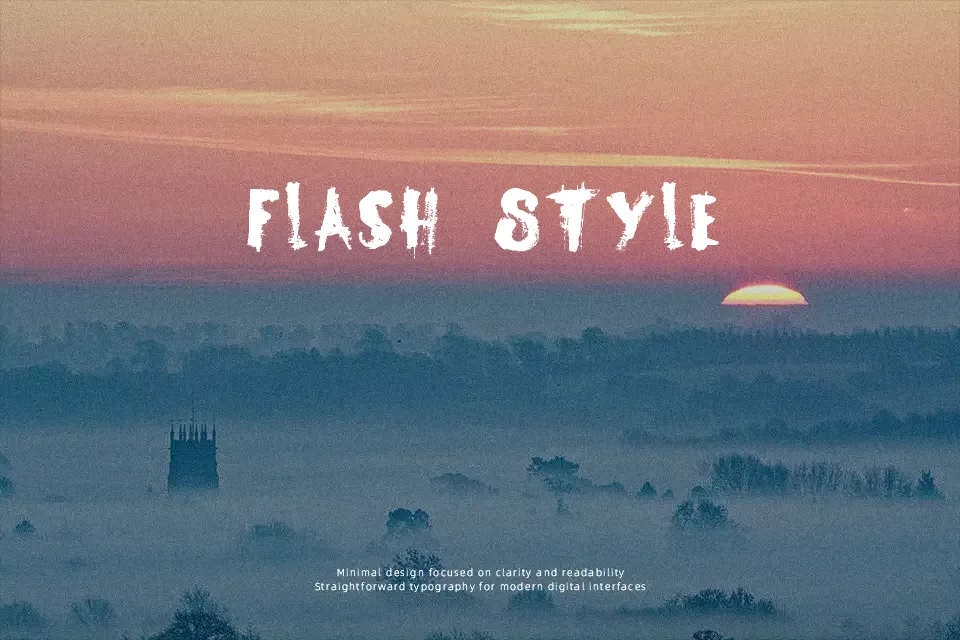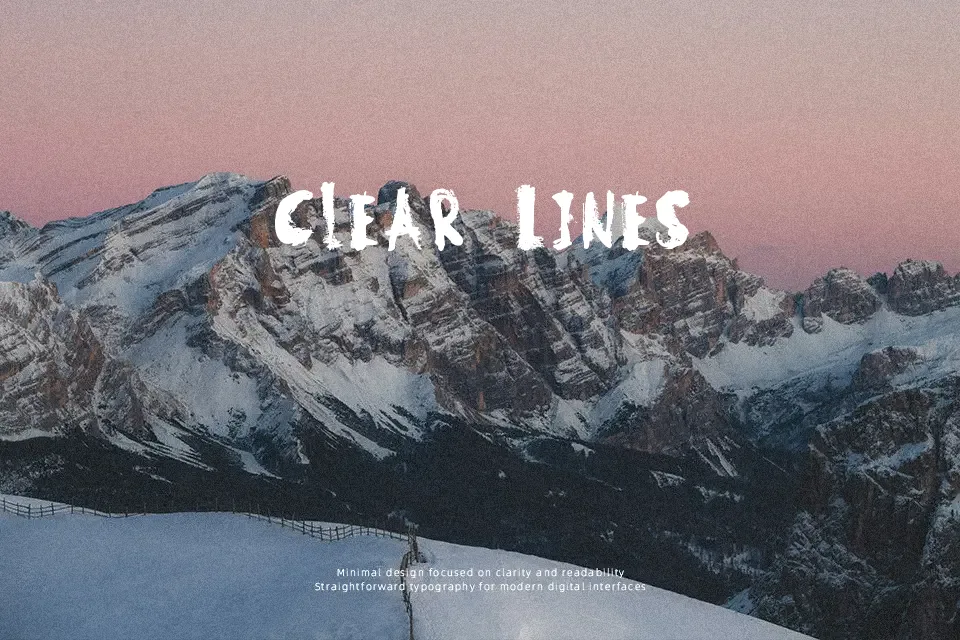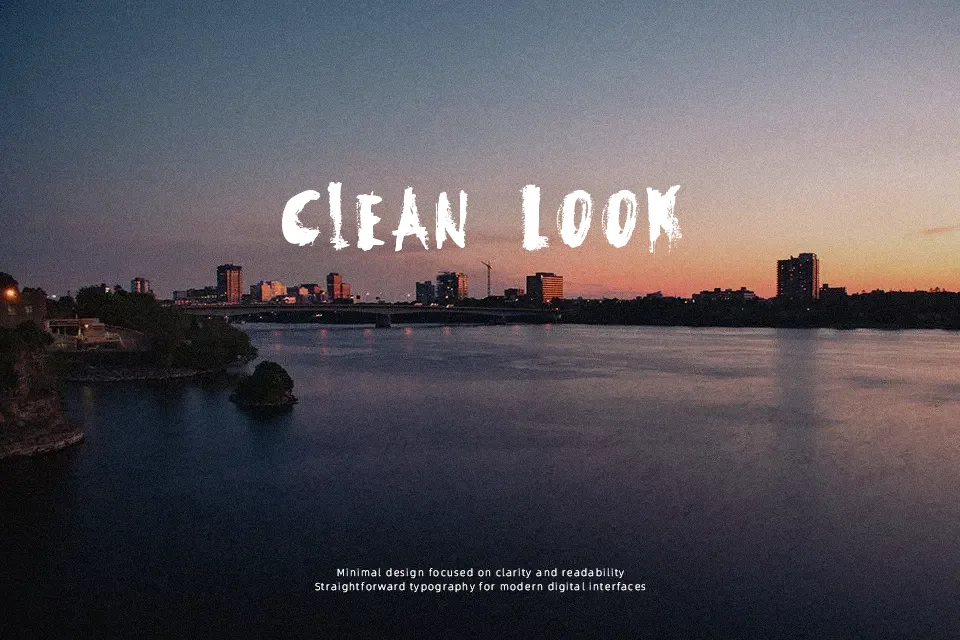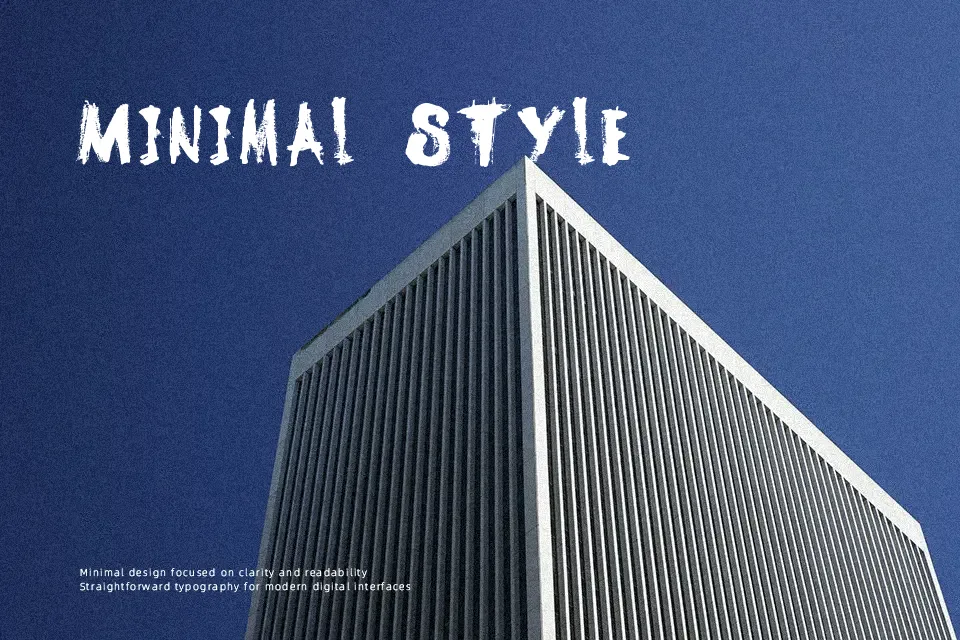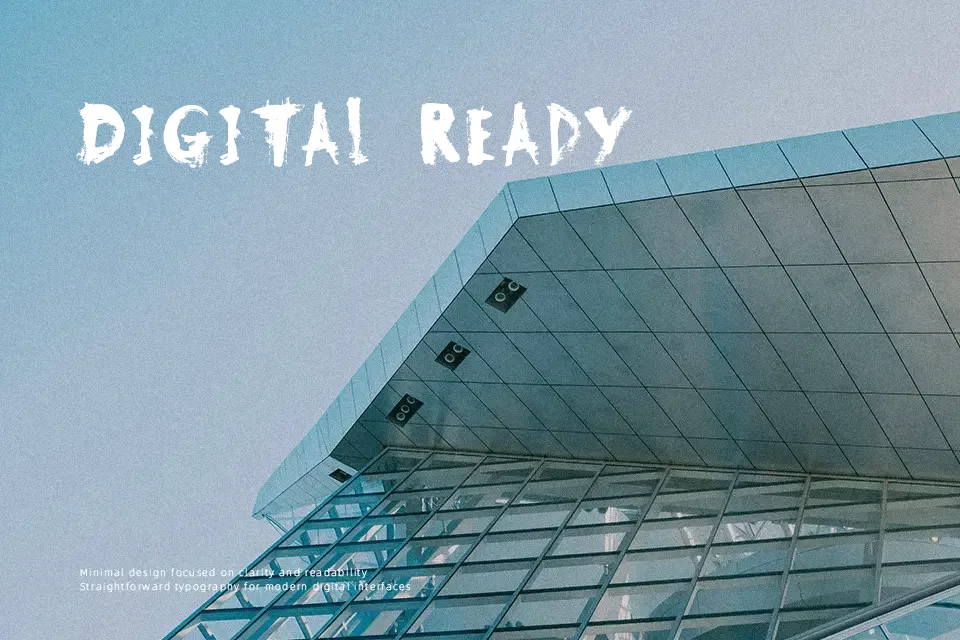
DK Samhain Font
Designed by David Kerkhoff
DK Samhain Font has a jagged, distressed build with thick strokes, irregular edges, and slightly uneven spacing that makes the text feel worn and unsettled. The letterforms read like a handmade horror display face rather than a polished headline font, which gives it character at larger sizes. It works well on Halloween posters, spooky party invites, themed packaging, or horror film artwork where the texture does part of the storytelling. For clean branding, small interface text, or anything that needs a calm tone, it starts to feel too noisy. If you want something eerie but still readable in short bursts, it holds up nicely.
Halloween posters,haunted event flyers,horror film titles,seasonal packaging
body copy,formal branding,small UI labels,corporate documents
Perfect for film, halloween, and headline, with a creative and decorative style.